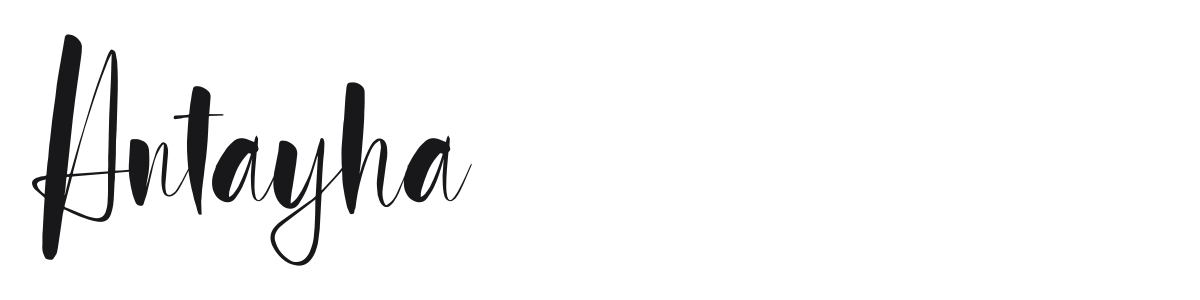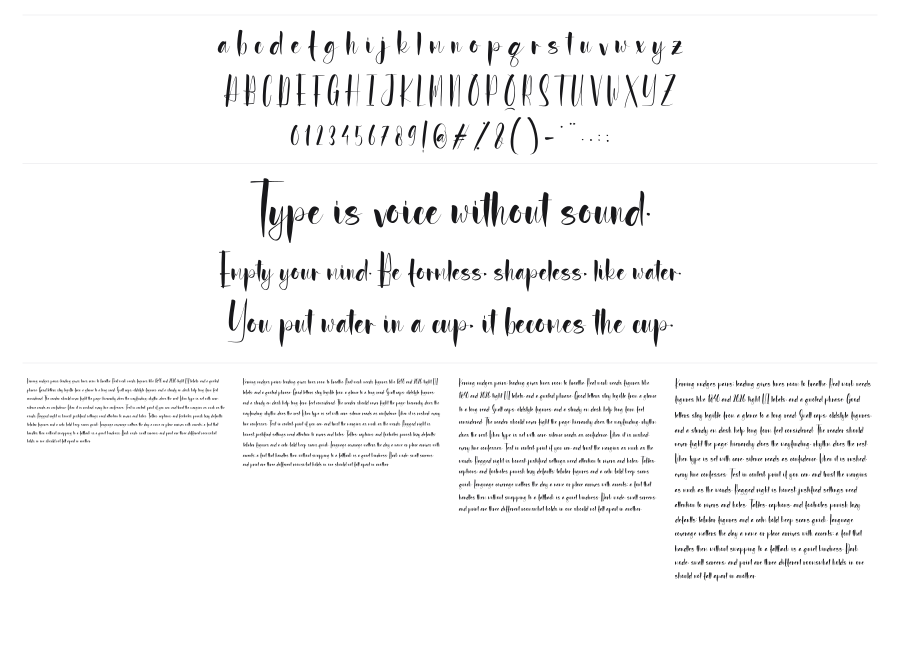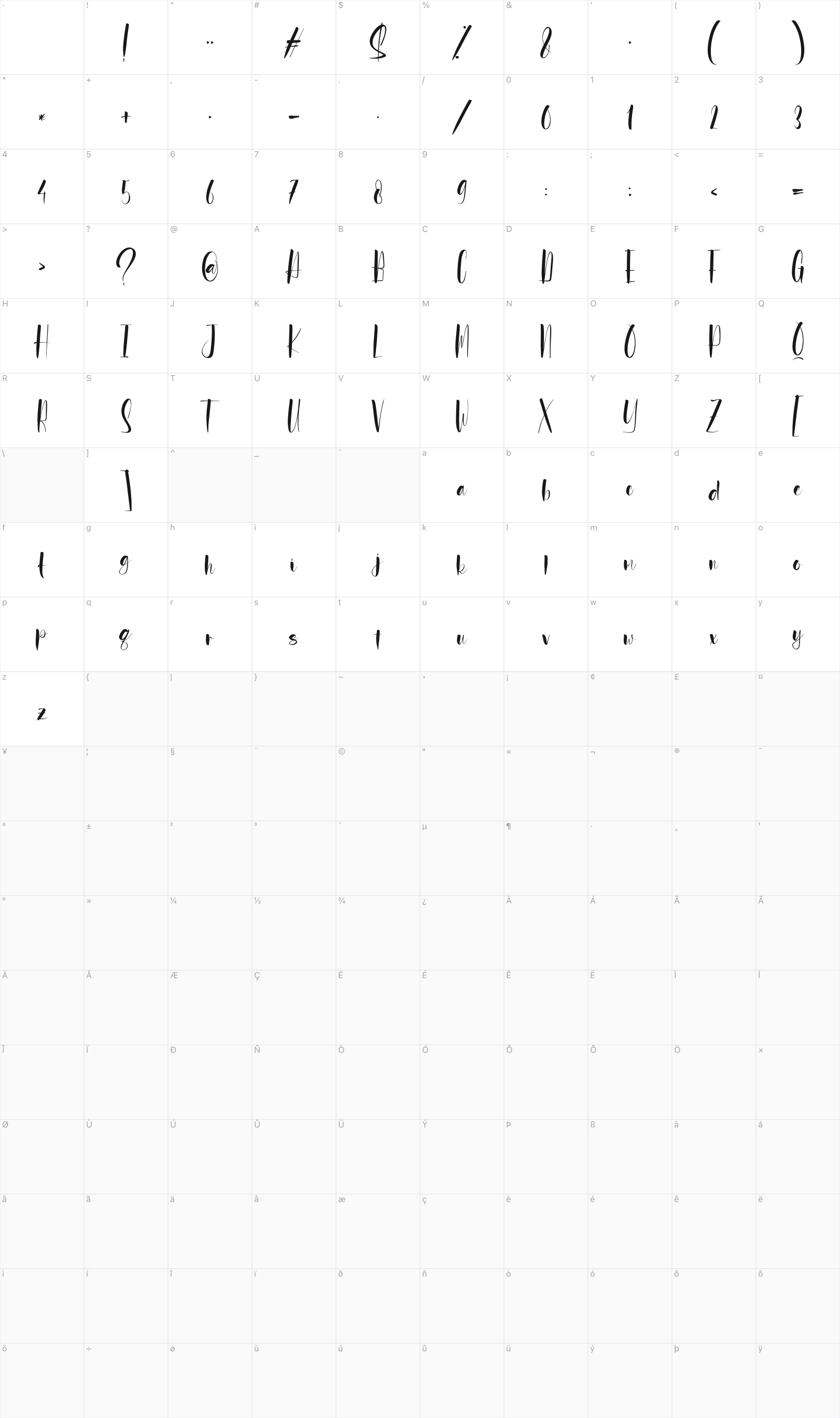
Antayha
Antayha is a modern brush script with bold swelling strokes and delicate hairline transitions that feel freshly written with ink. Tall looping ascenders and descenders give it an expressive, free-spirited character without losing legibility at headline sizes. It sits comfortably in wedding stationery, branding, and any project that needs warmth and personality.